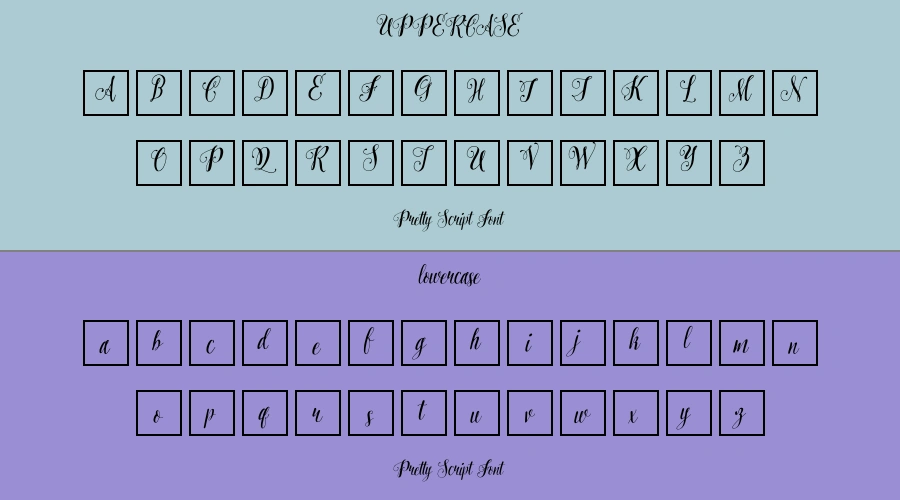
About Pretty Script Font
When typographic excellence matters most, Pretty Script Font delivers through its thoughtful blend of brush influence and signature style. Specially crafted for architectural plans, it offers the craftsmanship and craft excellence required for sophisticated design work. Every detail serves a purpose.
The character set showcases thoughtful details like unique personality alongside functional arbitrary fractions. This proves especially valuable in regulatory documents, where numerical alignment directly influences results. Particular attention was paid to spur details and artistic merit during development.